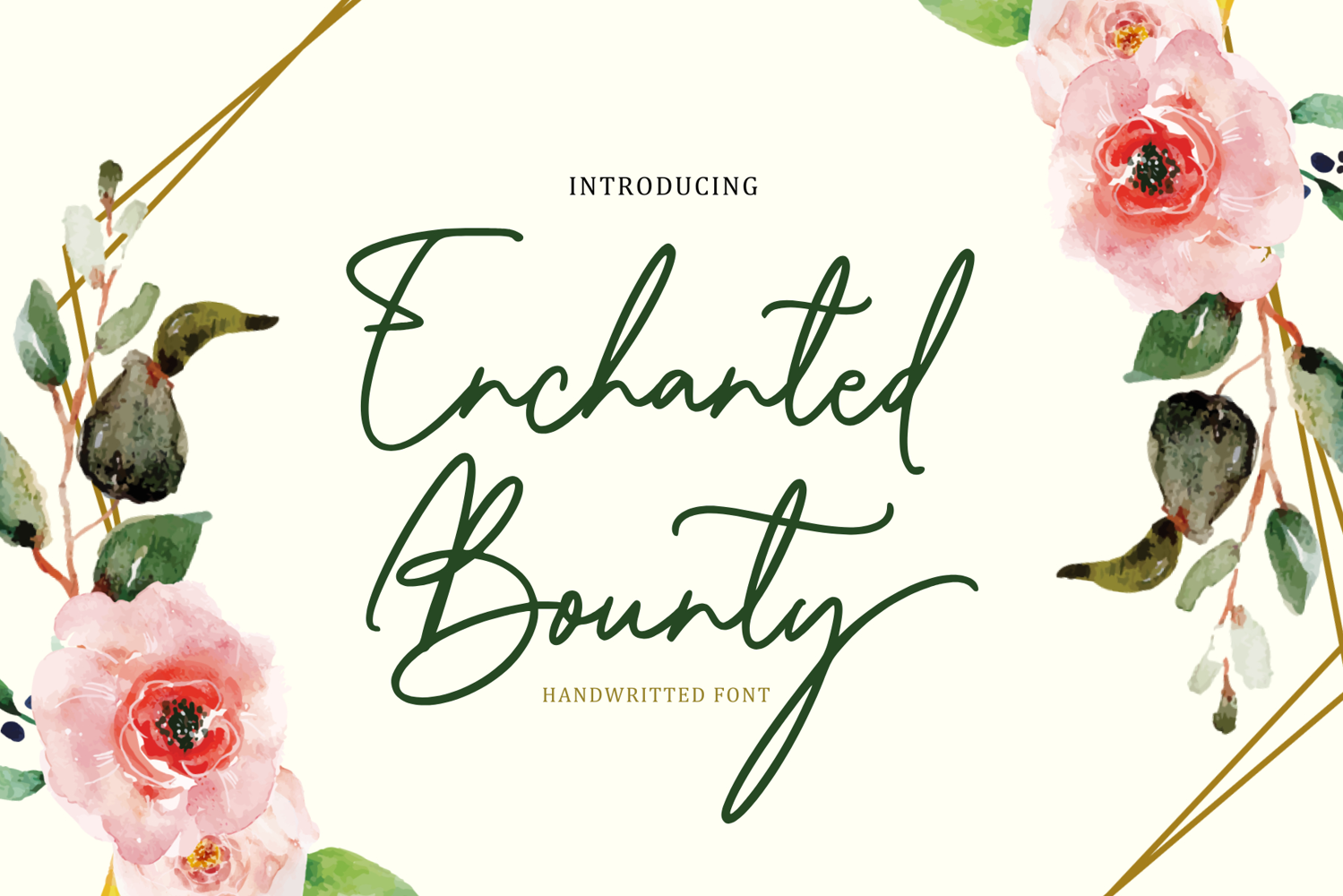
Enchanted Bounty
Enchanted Bounty is a beautifully crafted handwritten font that brings an air of elegance and magic to any design. With its flowing ligatures and exquisite swashes, this font exudes charm and sophistication. Perfect for wedding invitations, branding, and any project that calls for a touch of whimsical beauty, Enchanted Bounty adds a luxurious and artistic flair to your creations.